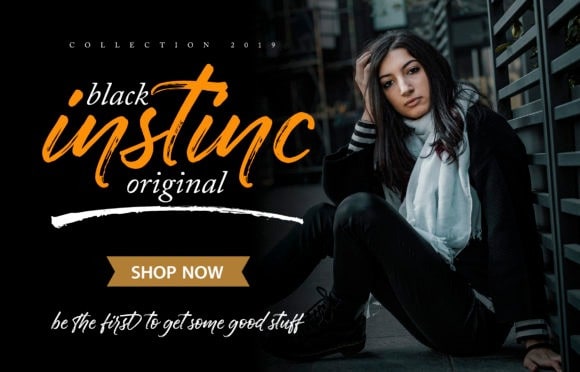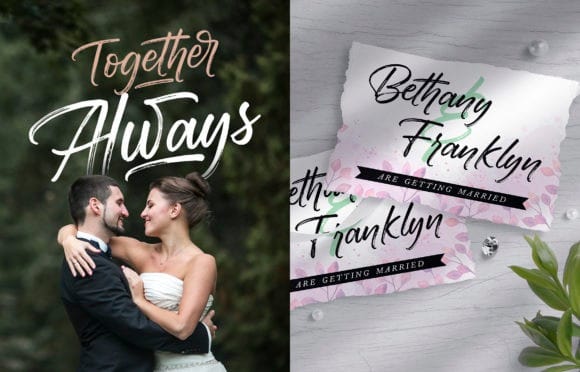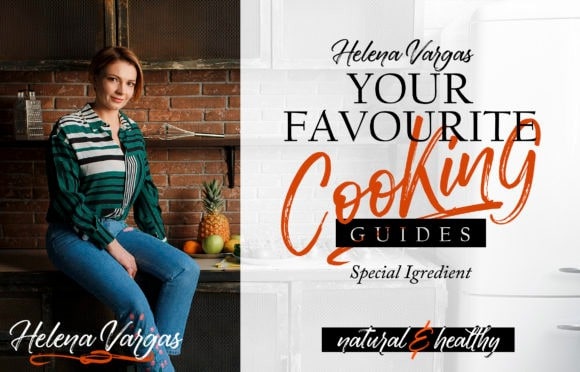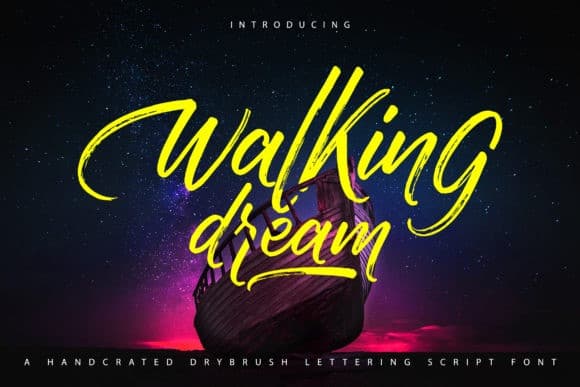
Walking Dream Brush Font
Hi everyone, Introducing the new Walking Dream Brush Font with a distinctive texture. It’s a bold and playful dry brush font with a dynamic vibe. Made from font designer named Vunira. It will turn any design idea into a true standout. Walking Dream Brush Font will be perfect for posters, packaging, advertisements, headlines, branding, signboards, and whatever else you want from an urban look and feel.